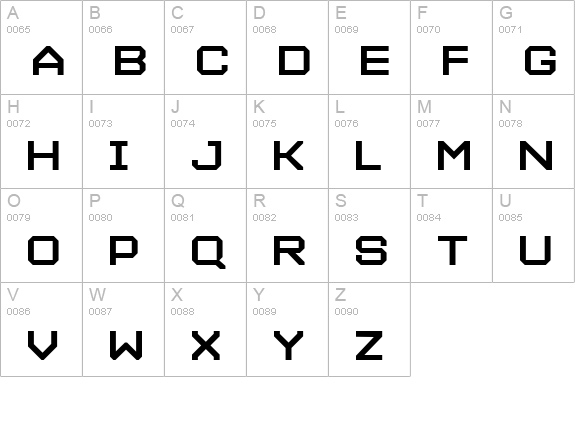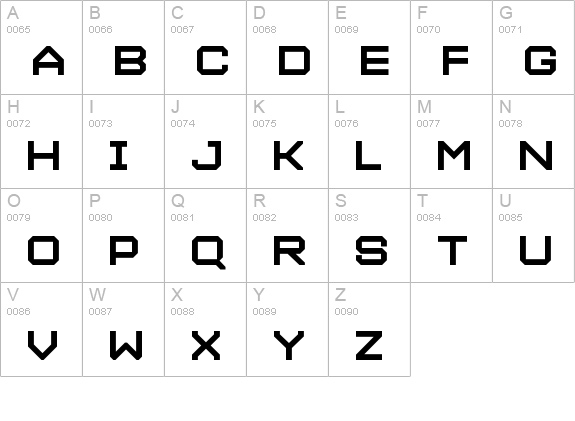
Maetl ExtraBold Font Details
Maetl ExtraBold is an extra-heavy, attention-grabbing variant in the Maetl typeface family \xE2\x80\x94 well suited to high-impact headlines, posters, and bold branding.
Maetl ExtraBold is a captivating and versatile font that exudes confidence and power. With its bold and commanding letterforms, this typeface demands attention and makes a bold statement. Whether used in headlines, titles, or logos, Maetl ExtraBold effortlessly grabs the viewer's eye and leaves a lasting impression. This font is meticulously crafted to provide a perfect balance between elegance and strength. The thick and sturdy strokes of Maetl ExtraBold give it a strong presence, while the refined details and subtle curves add a touch of sophistication. The result is a font that is both authoritative and visually pleasing. One of the best features of Maetl ExtraBold is that it is freely available to download at FontsMarket.com. This means that designers, creatives, and typographers can easily access this remarkable font without any cost. It is a fantastic opportunity to enhance any project with a high-quality typeface that carries such impact and character. Not only does Maetl ExtraBold offer immense visual appeal, but it also boasts excellent legibility. Each letter is designed with utmost care, ensuring that every word and sentence is easily readable, even at smaller sizes. This makes the font ideal for a wide range of applications, from print designs to digital projects. Maetl ExtraBold is a font that effortlessly captures attention and adds a touch of boldness to any design. Its freely available download at FontsMarket.com makes it a valuable asset for anyone seeking a powerful and visually striking typeface. With its commanding presence and impeccable craftsmanship, Maetl ExtraBold is the perfect choice for those who want to make a lasting impression.